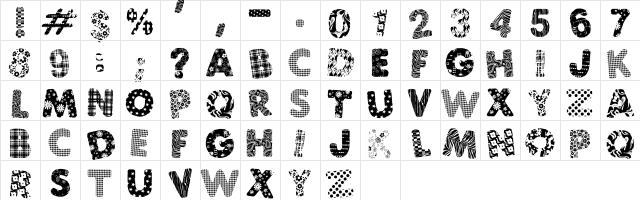
PatchFun Regular
Design Context for PatchFun Typeface
PatchFun has an approachable, lighthearted character — its loose, expressive forms are well-suited to children's content, casual branding, and fun-first design.
Font Pairing: Pairs well with a rounded or humanist sans for body copy, maintaining the friendly tone without relying on PatchFun to carry extended reading.
Pro Tip: Avoid using PatchFun for long passages of text — it works best for headlines, labels, and short calls to action.